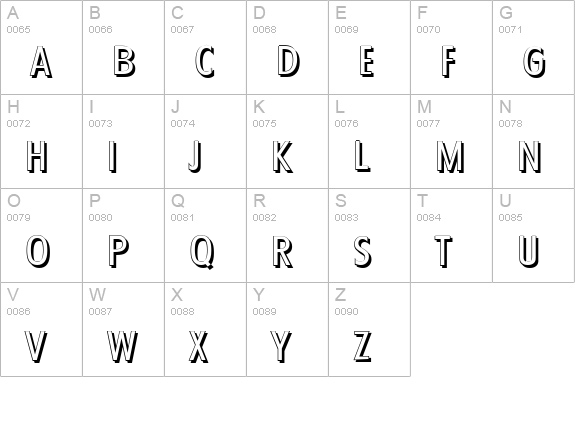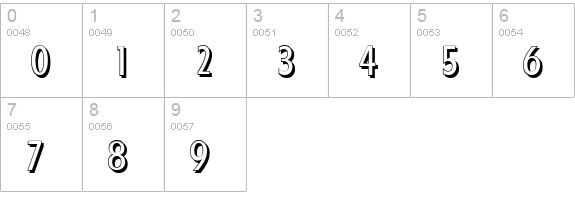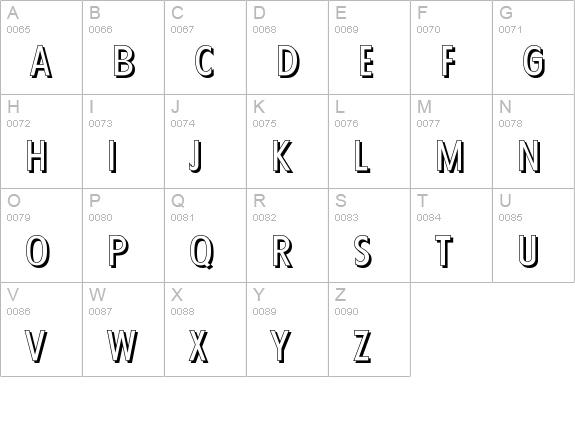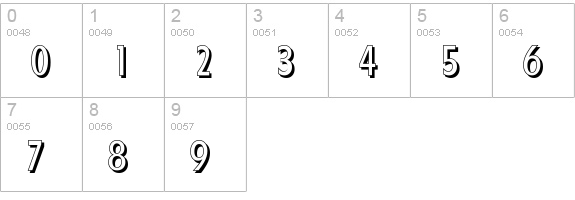
FloridaShadow-Regular Font Details
FloridaShadow-Regular is the standard, neutral variant in the FloridaShadow typeface family \xE2\x80\x94 well suited to general body text, paragraphs, and standard typographic work.
FloridaShadow-Regular is a stylish and sophisticated font that brings a touch of elegance to any design project. With its bold lines and subtle shadow effect, this font exudes a sense of modernity and class. Perfect for a variety of applications such as logos, invitations, and posters, FloridaShadow-Regular is sure to make your text stand out. And the best part? FloridaShadow-Regular is completely free to download at FontsMarket.com. Simply visit the website and start using this beautiful font in your projects today. Don't miss out on the opportunity to enhance your designs with this stunning typeface, available at no cost.